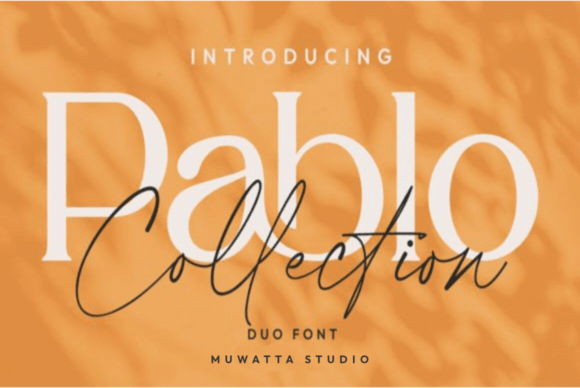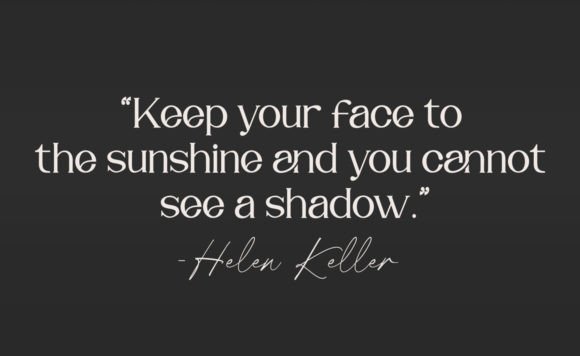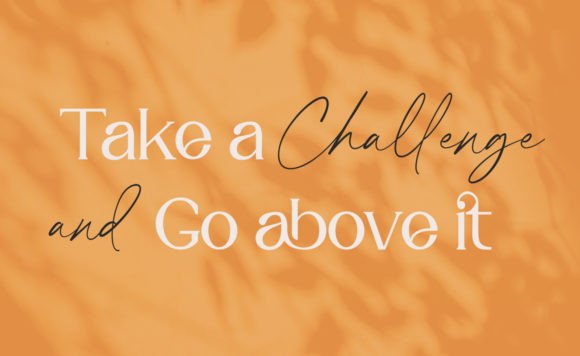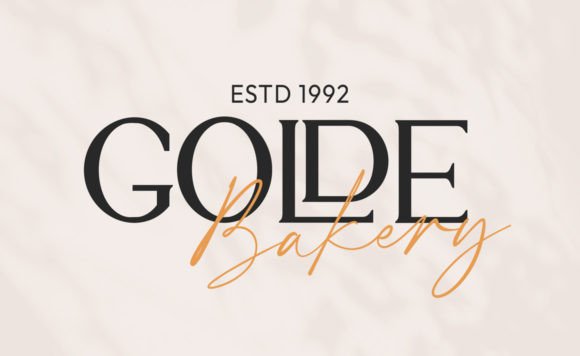
Pablo Duo Font
About the Pablo Duo Font
The Pablo Duo Font is here to transform your projects with its distinctive character and style. Pablo is a stunning pair of script and serif fonts that complement each other, with an elegant and luxurious look. This font duo is suitable for logo designs, stationery, quotes, or anything that needs an exquisite and stylish touch.
Pablo Duo excels in applications requiring a touch of refined elegance. It’s ideal for branding projects aiming for a sophisticated aesthetic, particularly logos, invitations, and short-form text on packaging or stationery. Its luxurious feel makes it unsuitable for large bodies of text or user interfaces where readability is paramount.
For optimal pairings, consider complementing the script with a clean sans-serif like Montserrat for a modern contrast, or a classic serif such as Garamond for a more traditional feel. Using Pablo’s serif counterpart with a geometric sans-serif like Futura adds a contemporary edge.
The overall personality of Pablo Duo is sophisticated and elegant, conveying luxury and high quality. It’s best suited for brands projecting a premium image, such as high-end fashion, jewelry, or boutique hotels.
Pablo Duo Font Usage Examples
Pablo Duo Font Example